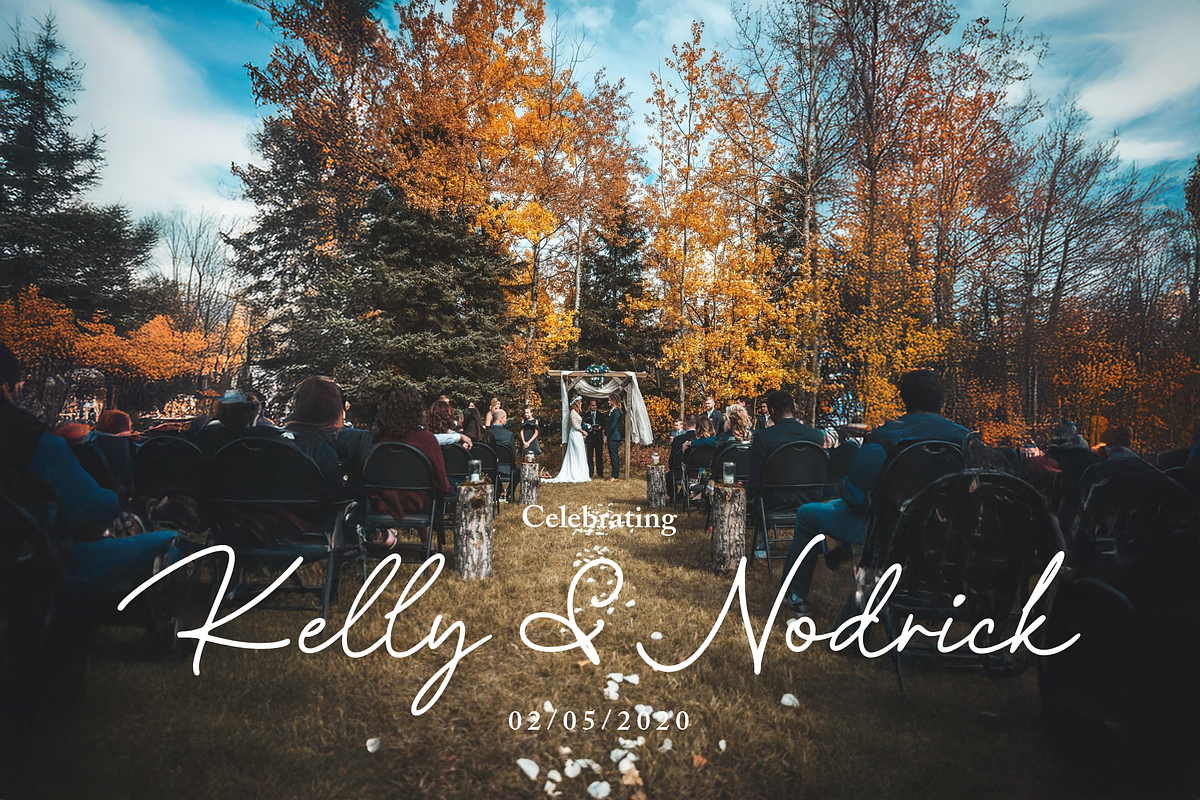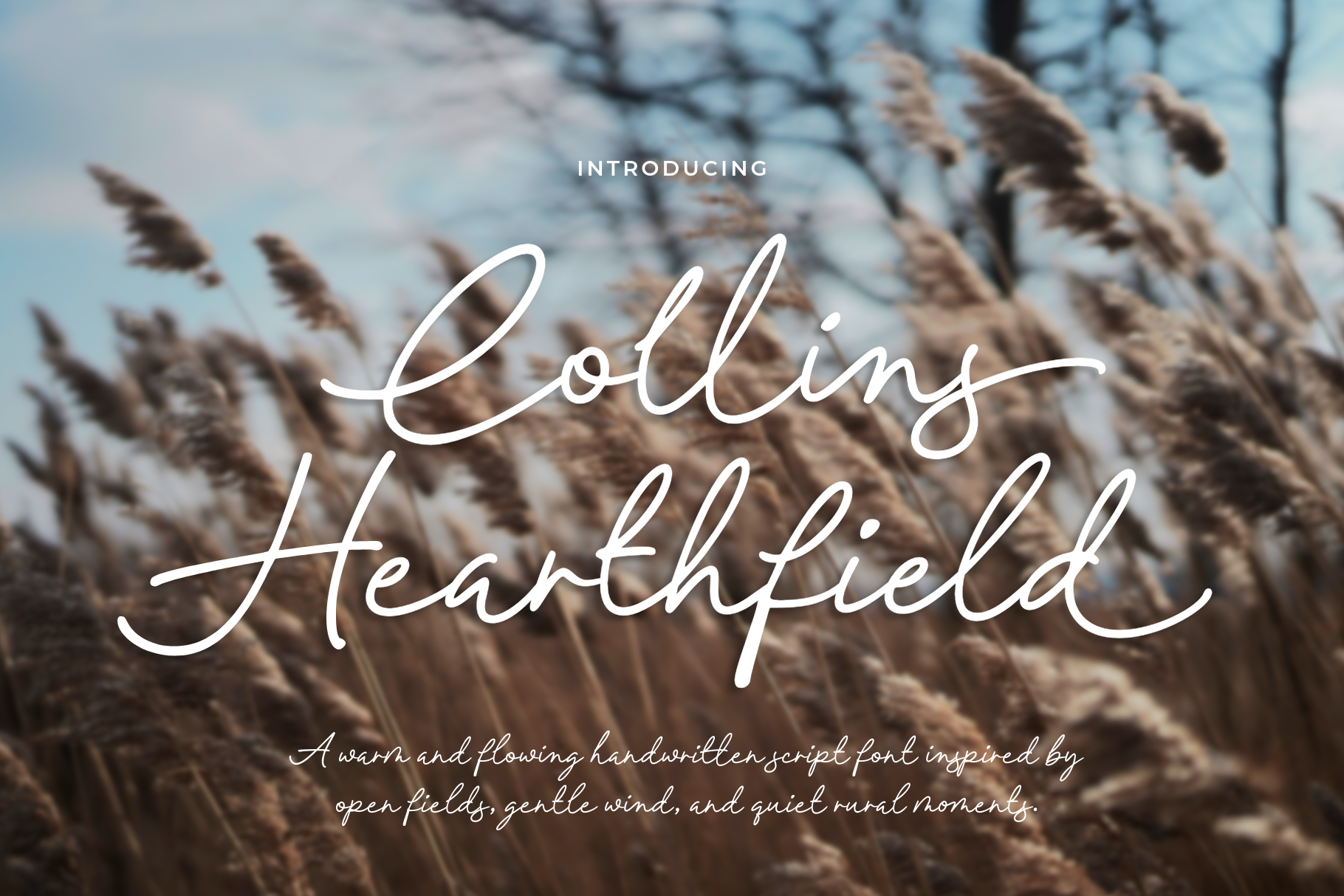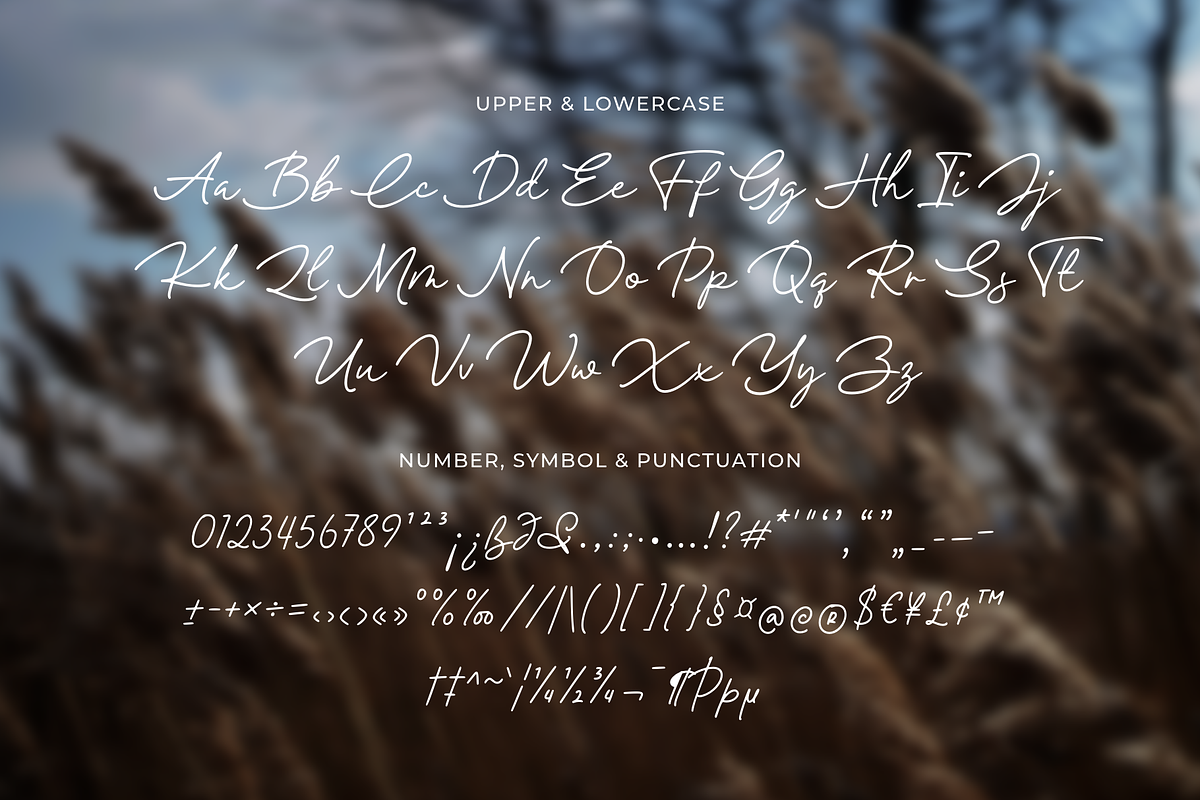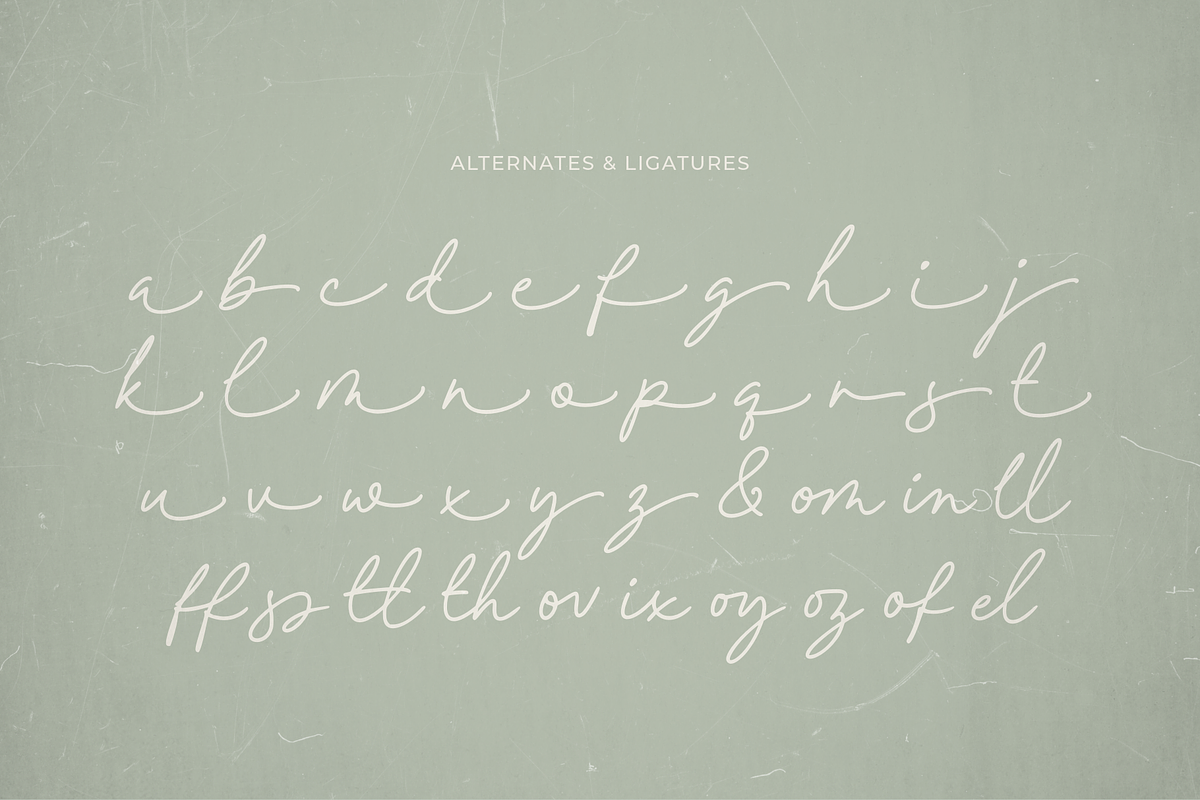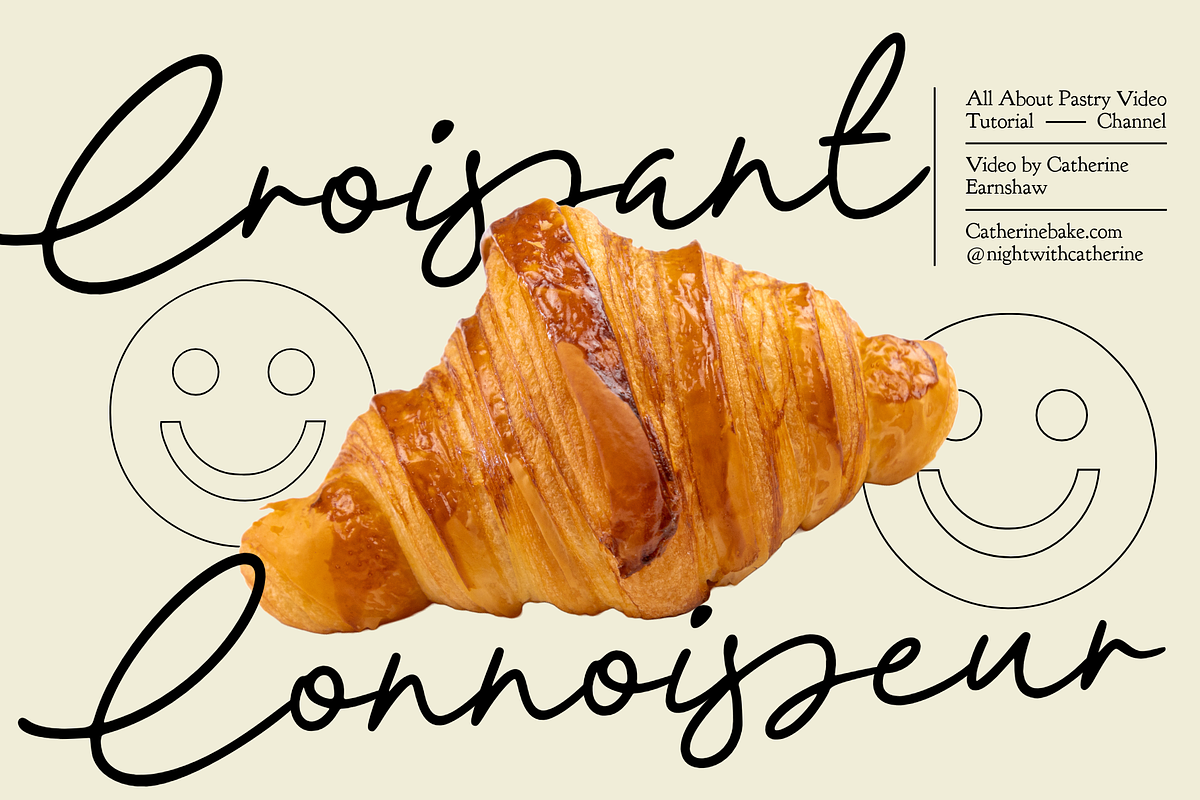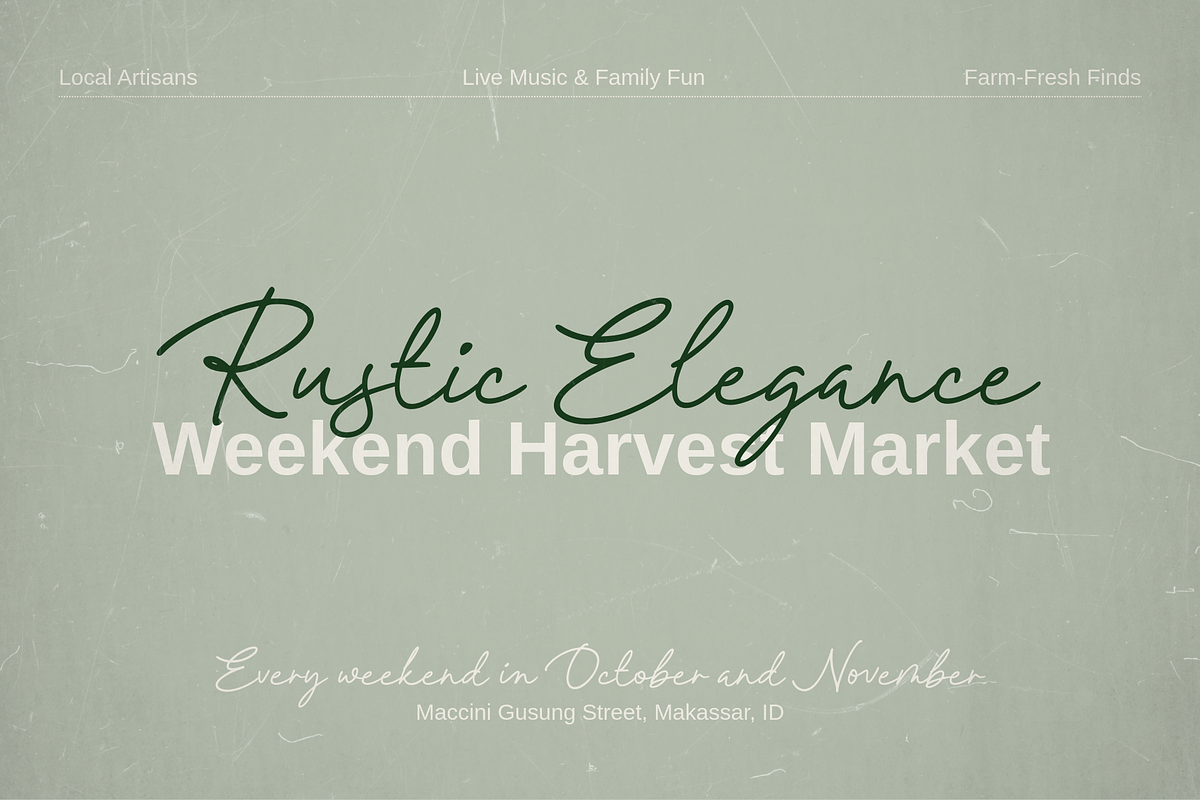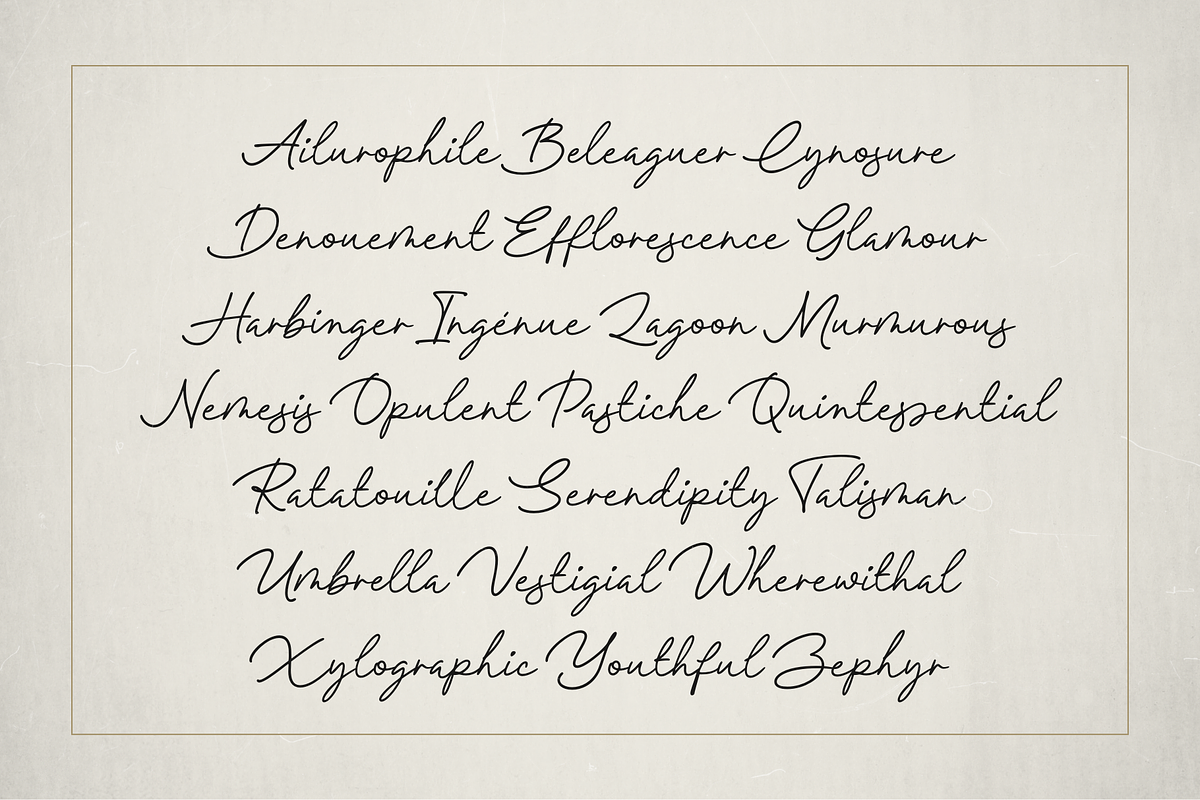
Collins Hearthfield a Script Font
Collins Hearthfield is a warm and flowing handwritten script font inspired by open fields, gentle wind, and quiet rural moments. Its smooth strokes and natural rhythm create a relaxed yet elegant feel, making it perfect for designs that need a cozy and organic touch.
This font works beautifully for branding, logos, packaging, invitations, quotes, social media, and lifestyle designs. Collins Hearthfield brings a sense of warmth, simplicity, and timeless charm while remaining clear and easy to read in both print and digital use.
Ideal for projects that celebrate nature, calm living, and authentic handmade aesthetics.
- A set of uppercase and lowercase glyphs.
- Number, symbol, and punctuation.
- Multilingual Support.
- Alternates and Ligatures
Ligatures will automatically replace the standard letter pairs whenever available, when using any OpenType capable software.